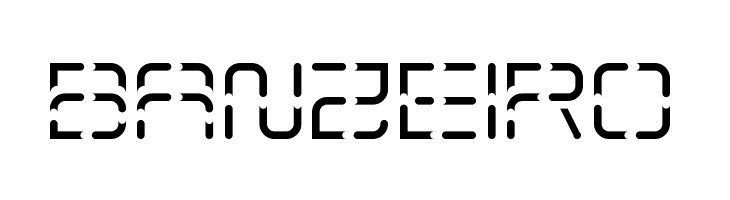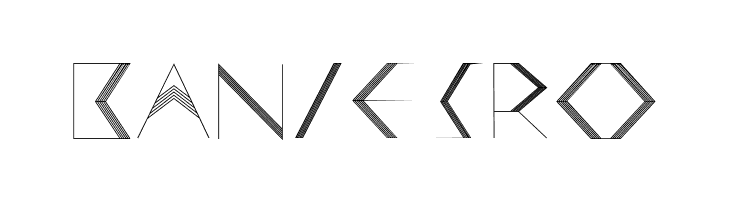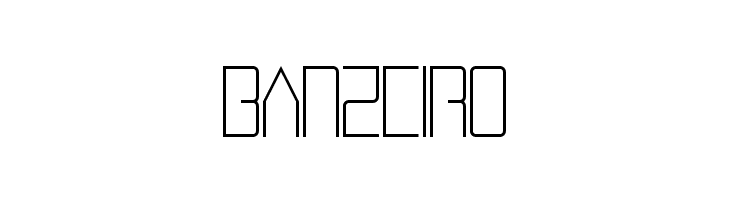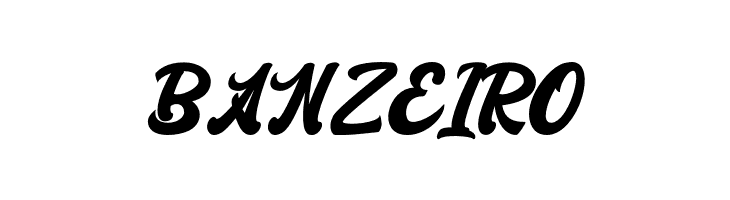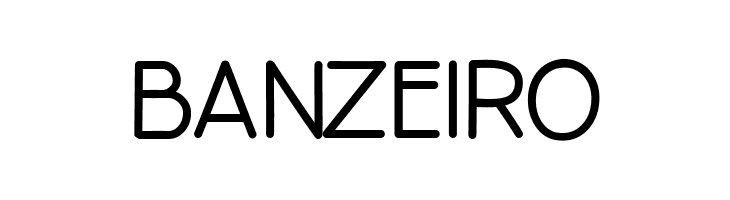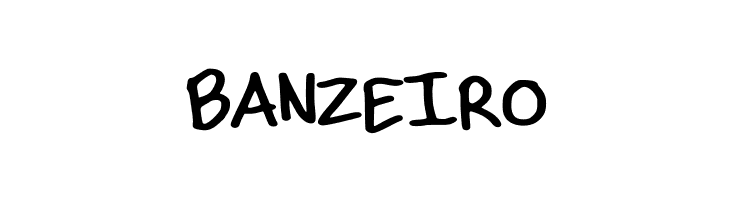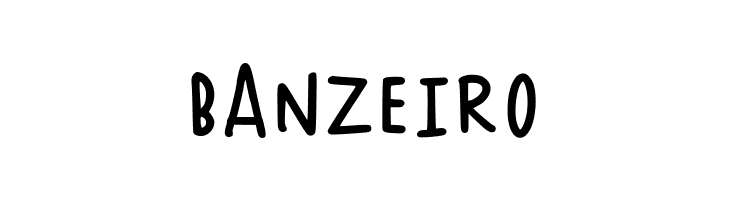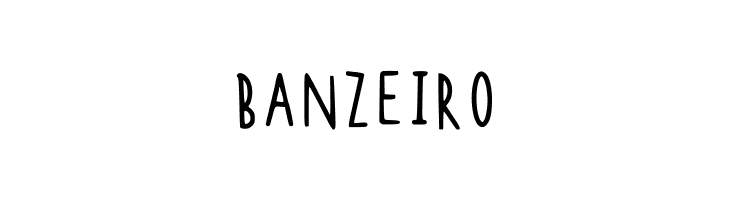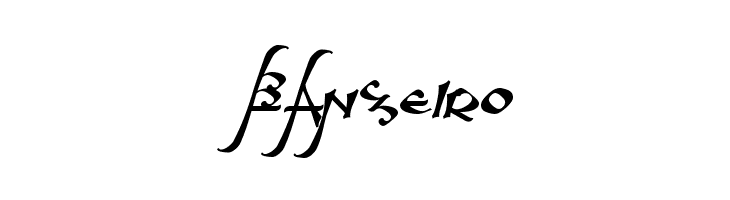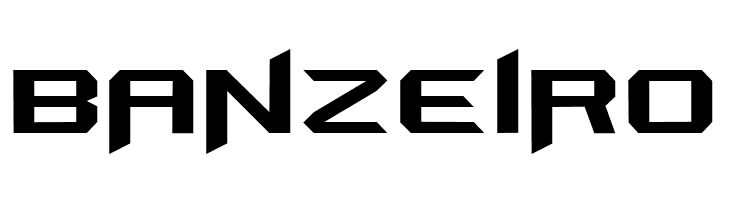
A playful, handwritten font with a friendly and informal style.
A playful, handwritten font with smooth, rounded strokes and a casual feel.
A playful, handwritten font with rounded, irregular letterforms.
An elegant script font with flowing, interconnected letters and ornate uppercase characters.
A bold, rounded font with a strong and friendly appearance.
A bold, geometric font with a futuristic and technical design.
A modern, rounded sans-serif font with excellent readability.
A bold, elegant script font with interconnected characters and ornate flourishes.
A futuristic, geometric font with bold, interconnected lines and angular shapes.
A futuristic, geometric font with bold, angular shapes.
An elaborate and decorative font with intricate swashes and flourishes.
A bold, futuristic font with geometric shapes and sharp angles.
A modern, geometric font with clean lines and excellent readability.
A bold, geometric font with a modern and professional style.
A sleek, modern font with clean lines and geometric structure.
A bold, geometric stencil font with a modern, industrial feel.
A bold, modern font with geometric, uniform characters and a contemporary style.
A bold, modern sans-serif font with a geometric and slightly condensed style.
A bold, futuristic font with sharp angles and a dynamic slant.
Bold, modern sans-serif with a futuristic style.
A bold, geometric font with a modern and industrial aesthetic.
A dynamic, calligraphic font with sweeping curves and sharp terminals.
A bold, flowing script font with elegant curves and dramatic swashes.
A distressed, grunge-style serif font with a vintage, edgy appearance.
A bold, geometric font with a strong visual impact.